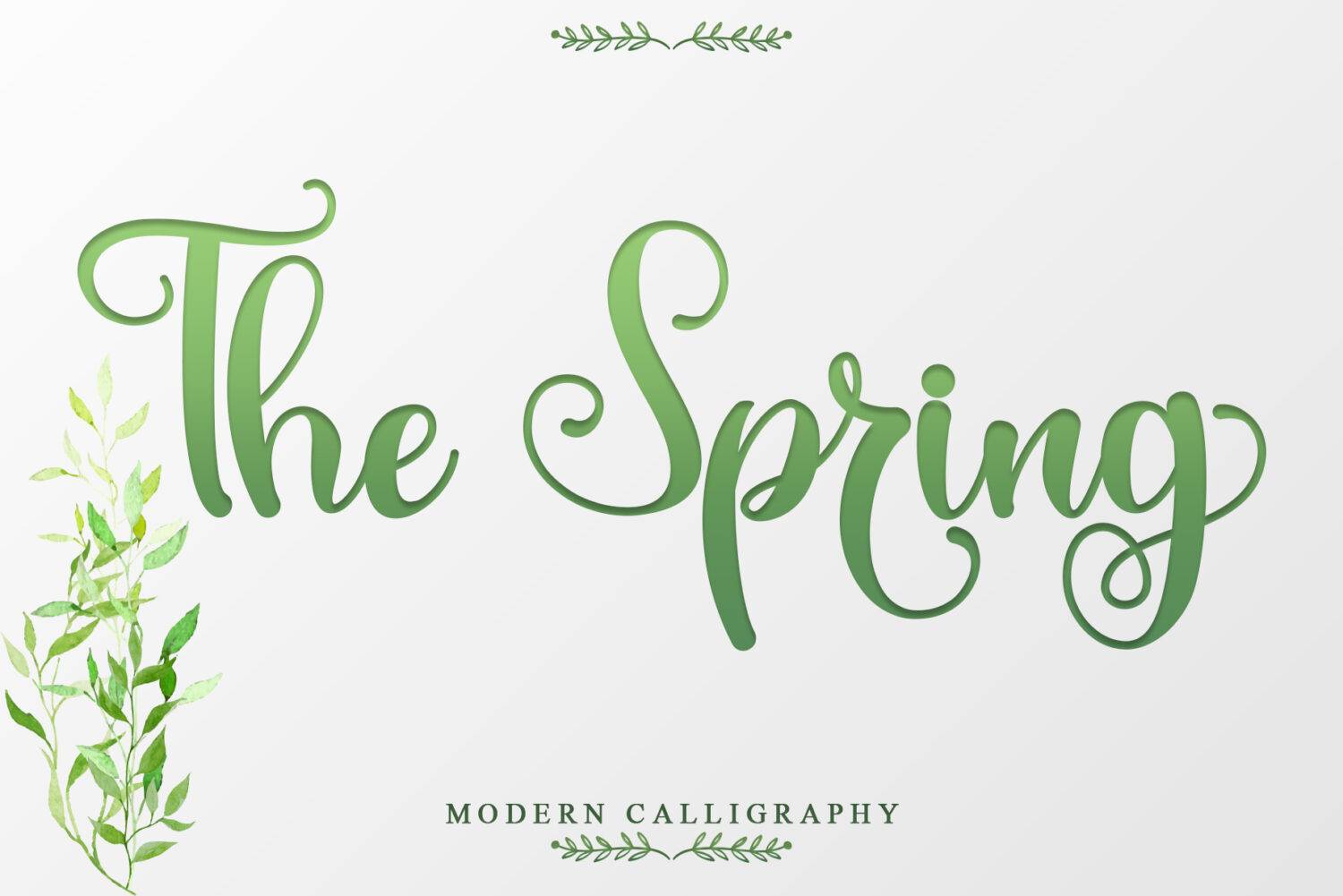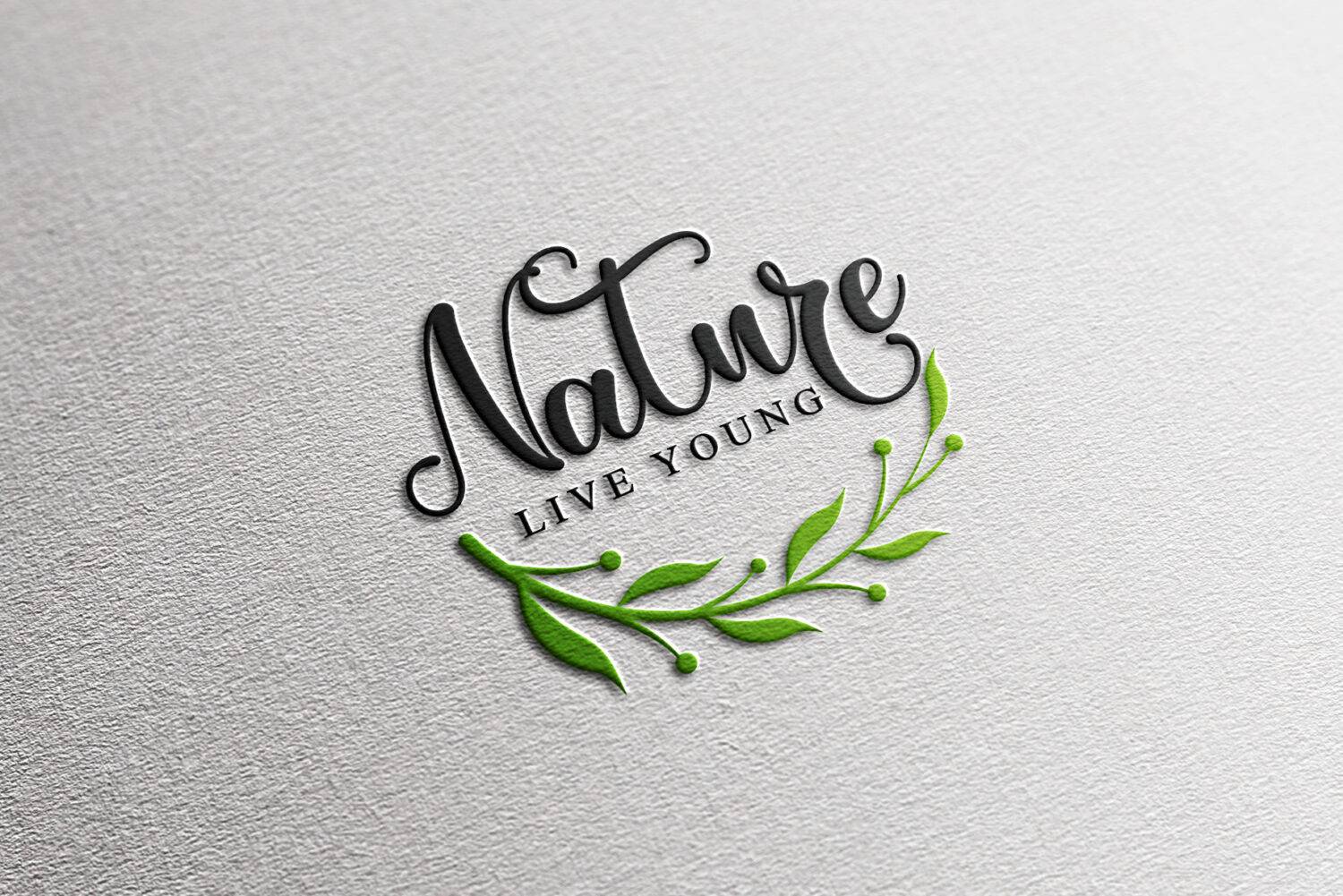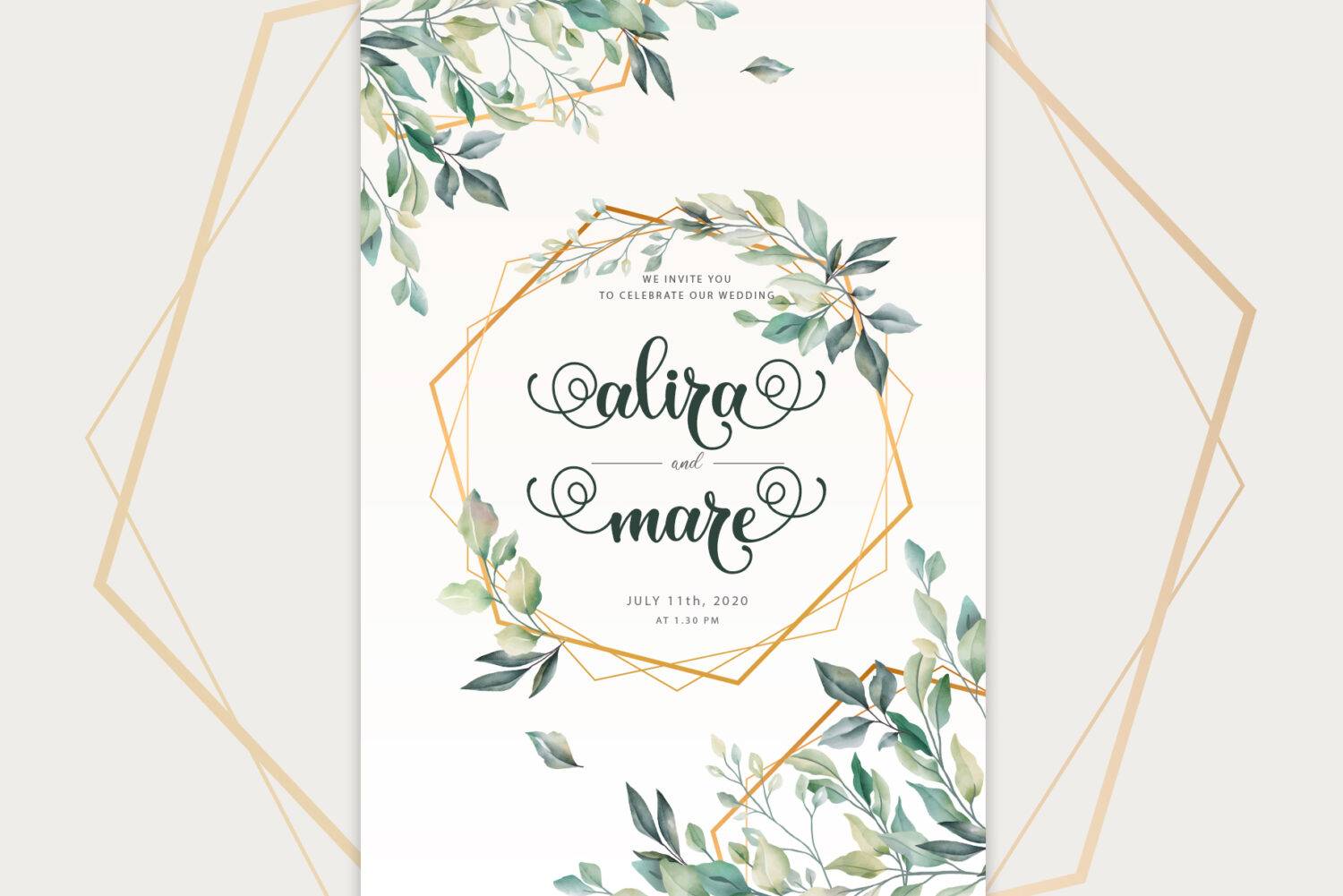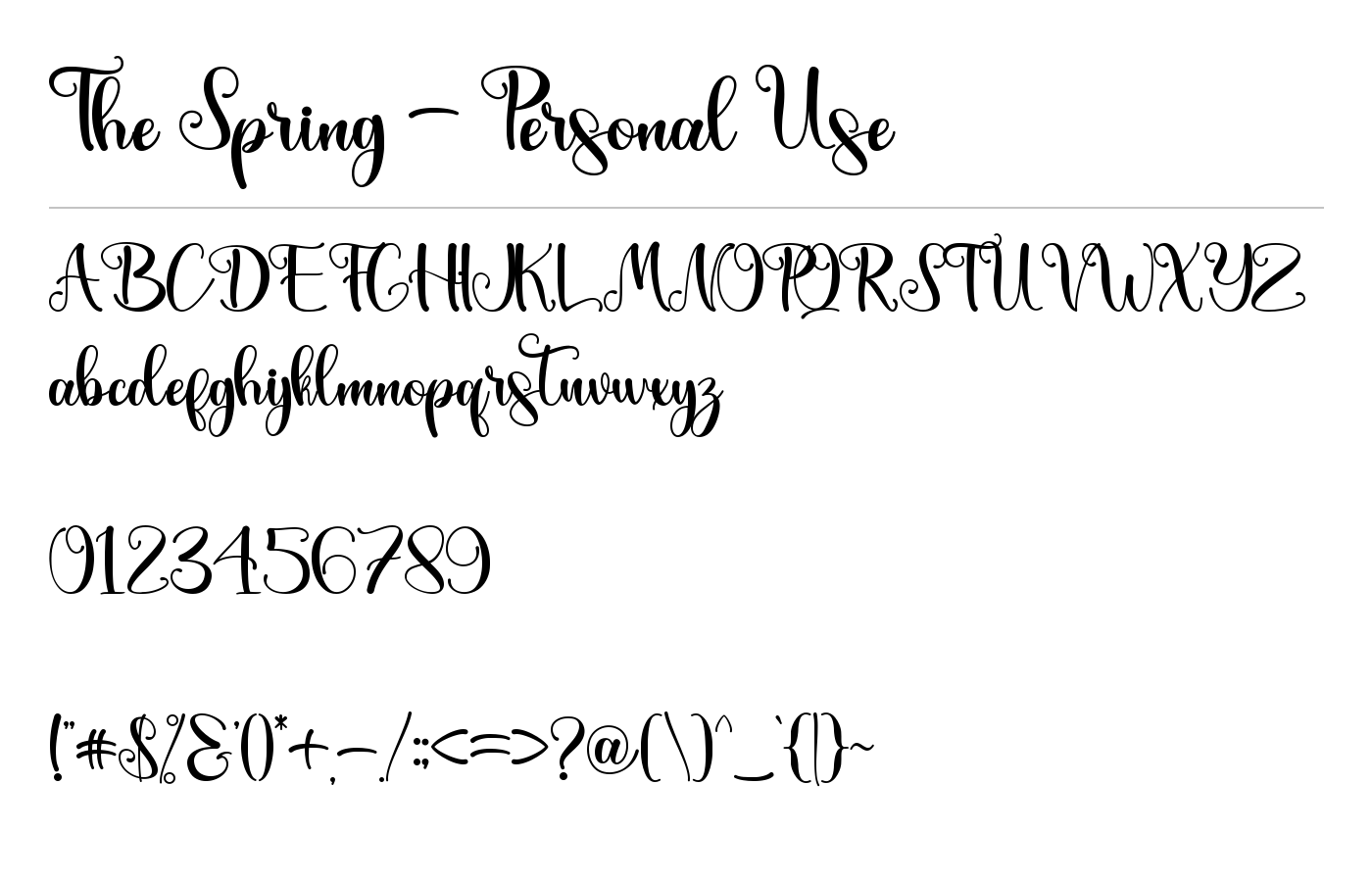
The Spring Font is a charming and elegant script typeface with a playful and flowing style, featuring tall, slender letterforms and delicate swashes that add a personal, handwritten touch. Its moderate contrast and smooth curves make it ideal for creative and feminine designs such as invitations, branding, and packaging, where a warm and inviting feel is desired. This font works beautifully in headlines and decorative text, bringing a sense of grace and personality to any project.
The Spring Font
About The Spring Font